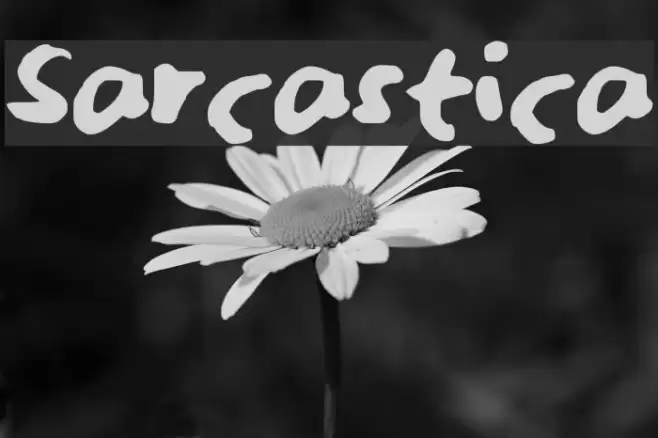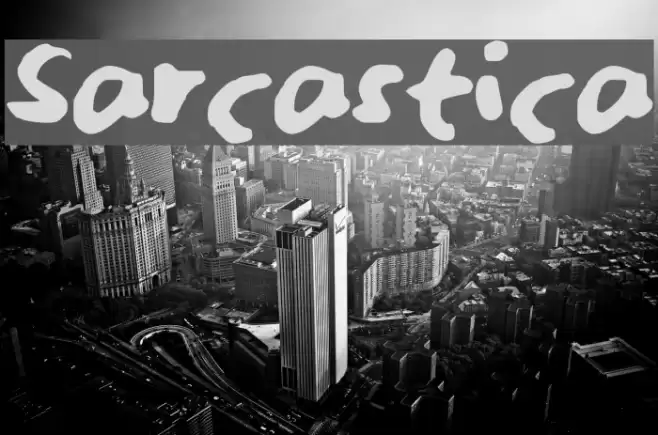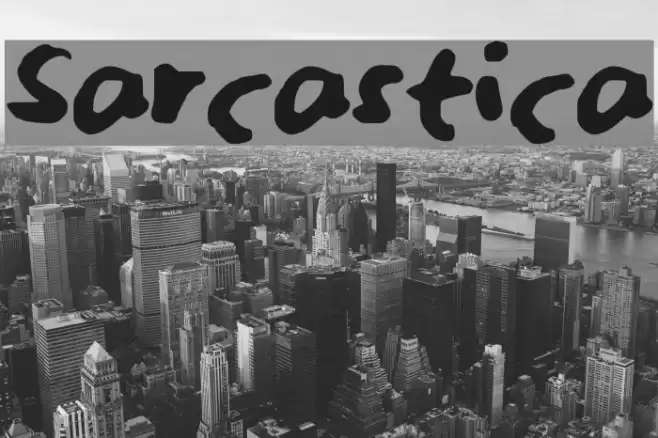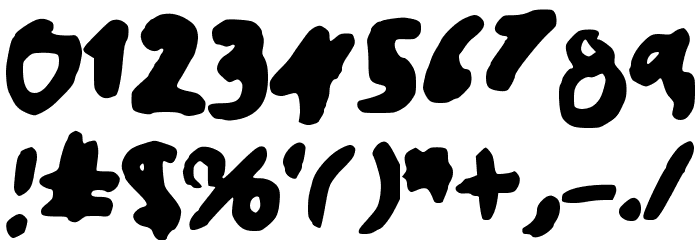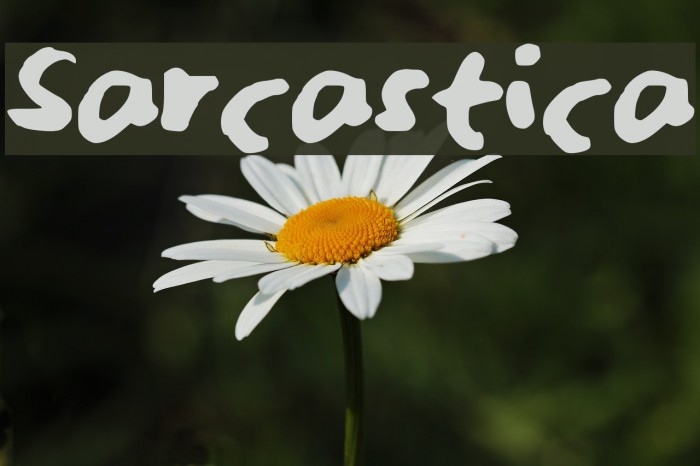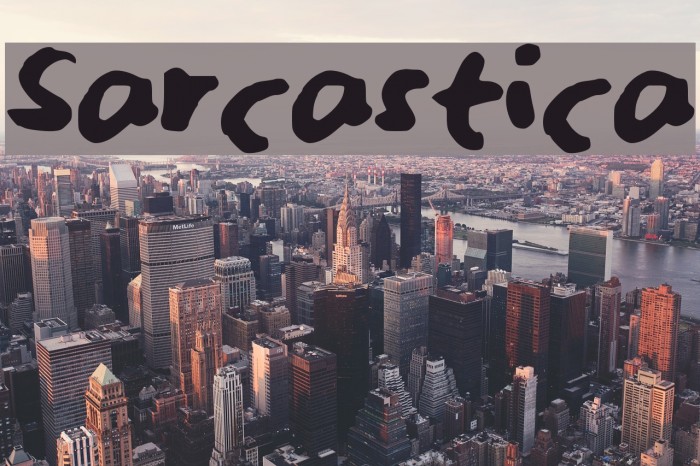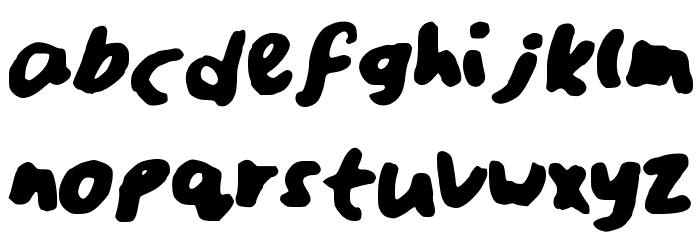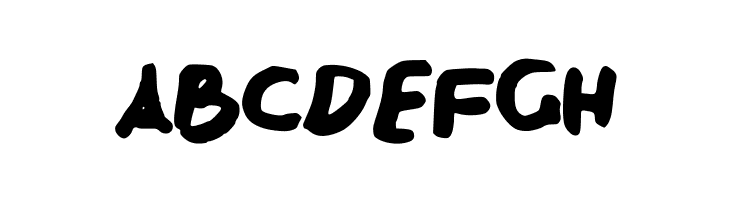
Sarcastica Font
Sarcastica Description
This font features a bold and playful handwritten style, characterized by its thick, uneven strokes and casual appearance. The letters are slightly slanted, giving a dynamic and energetic feel. The uppercase and lowercase letters maintain a consistent style, with rounded edges and a somewhat whimsical flair. The numbers and special characters follow the same playful design, making the font suitable for informal and creative projects. Its boldness ensures high visibility, while the irregular shapes add a touch of uniqueness and personality.
A bold, playful handwritten font with thick, uneven strokes from Uncategorized fonts.
- Proposed Projects: Ideal for children's books, comic strips, playful branding, and creative posters.
- Overall Style: Playful